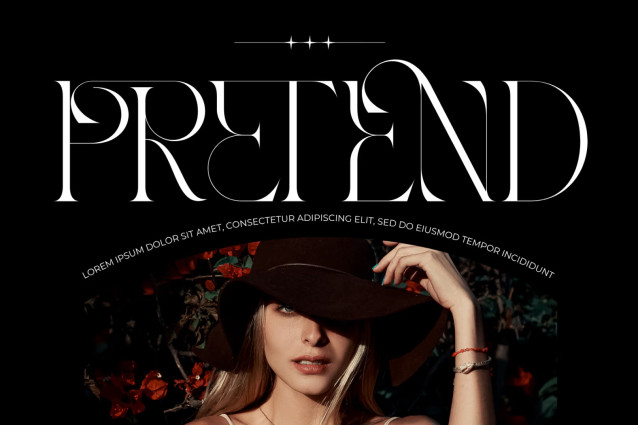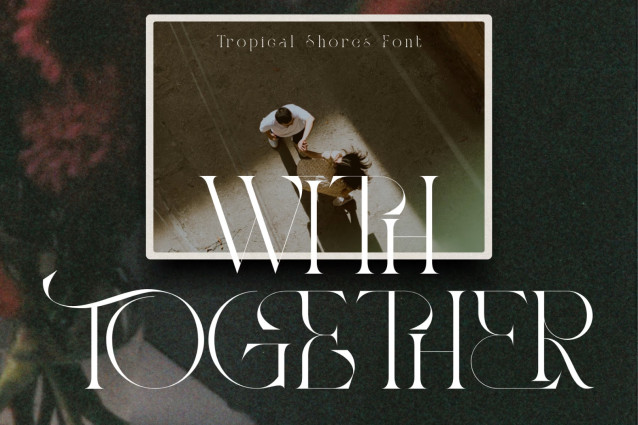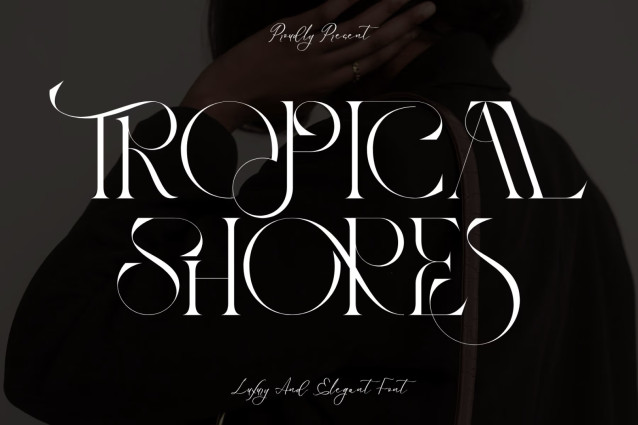
TROPICAL SHORES – LIGATURE SERIF FONT
TROPICAL SHORES – LIGATURE SERIF FONT – Modern Luxury Editorial & Tropical Swash Display Font, high-fashion display font designed to infuse pure coastal elegance and resort-style sophistication into your creative projects. Harmonizing high-contrast editorial serif proportions with sweeping, wave-like swashes, this typeface captures the effortless allure of tropical luxury and modern Art Nouveau typography.
Featuring tall, condensed letterforms punctuated by dramatic looping curves and fluid terminals, TROPICAL SHORES transforms ordinary text into custom typographic art. It is meticulously crafted for designers working on luxury resort branding, high-fashion editorial covers, summer beauty packaging, boutique logos, wedding stationery, and lifestyle identity designs. Elevate your brand with a touch of sun-drenched elegance and timeless romance using TROPICAL SHORES.